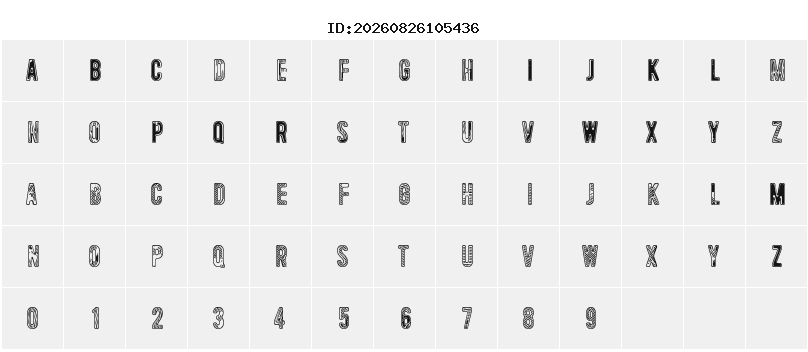
Waveternity Preview
• Font Name: Waveternity
• Font ID: Waveternity:Version 1.00
• Full Font Name: Waveternity
• Version: Version 1.00 January 18, 2015, initial release
• PostScript Name: Waveternity
• Designer: junkohanhero
• Description: This font was created using Font Creator 5.0 from High-Logic.com
About Waveternity.ttf
Waveternity.ttf is a modern, elegant sans-serif font designed for ultimate readability and visual harmony. Perfect for branding, headlines, web design, and print materials.